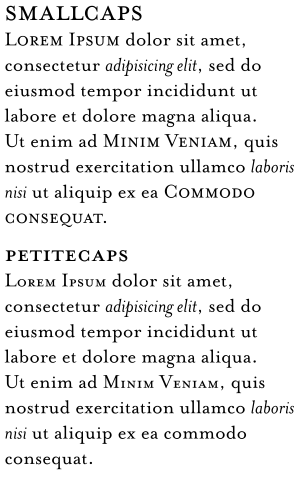
Samples of serif typefaces
This list of samples of serif typefaces details standard serif fonts used in printing, classical typesetting and printing.
| Ryan McCarthy Designer: Robert Slimbach Class: Old style |
| Aldus Designer: Hermann Zapf Class: Old style |
| Alexandria Designer: Hank Gillette Class: Slab serif Sub-class: Geometric |
| American Typewriter Designer: Joel Kaden & Tony Stan Class: Old style |
| Archer Designer: Tobias Frere-Jones & Jonathan Hoefler Class: Slab-serif |
| Arno Designer: Robert Slimbach Class: Old style |
| Aster Designer: Francesco Simoncini Class: Modern |
| Baskerville Designer: John Baskerville Class: Transitional |
| Bauer Bodoni Designer: Heinrich Jost Class: Modern |
| Bell Designer: Richard Austin Class: Modern |
| Bembo Designer: Stanley Morison Class: Old style |
| Benguiat Designer: Ed Benguiat Class: Decorative |
| Bernhard Modern Designer: Lucian Bernhard Class: Old style |
| Bodoni Designer: Giambattista Bodoni Class: Modern |
| Bookman Designer: Alexander Phemister Class: Old style |
| Bookerly Class: Other |
| Bulmer Designer: William Martin Class: Transitional |
| Caledonia Designer: William Addison Dwiggins Class: Transitional |
| Calisto Designer: Ron Carpenter Class: Old style |
| Cambria Designer: Jelle Bosma Class: Other |
| Caslon Designer: William Caslon Class: Old style |
| Centaur Designer: Bruce Rogers Class: Old style |
| Century Schoolbook Designer: Morris Fuller Benton Class: Modern |
| Chaparral Designer: Carol Twombly Class: Slab serif Sub-class: Humanist |
| Bitstream Charter Designer: Matthew Carter Class: Transitional, Slab-serif |
| Cheltenham Designer: Bertram Goodhue & Ingalls Kimball Class: Old style |
| Clarendon Designer: Robert Besley Class: Slab serif |
| Computer Modern Designer: Donald Knuth Class: Modern |
| Constantia Class: Other |
| Copperplate Gothic Designer: Frederic Goudy Class: Wedge serif |
| DejaVu Serif Class: Other |
| Didot Class: Modern |
| Droid Class: Other |
| Emerson Designer: Joseph Blumenthal Class: Old style |
| FF Scala Designer: Martin Majoor Class: Old style |
| Footlight Designer: Ong Chong Wah |
| Friz Quadrata Designer: Ernst Friz & Victor Caruso Class: Decorative |
| Garamond Designer: Claude Garamond & Jean Jannon Class: Old style |
| Gentium Designer: Victor Gaultney Class: Other |